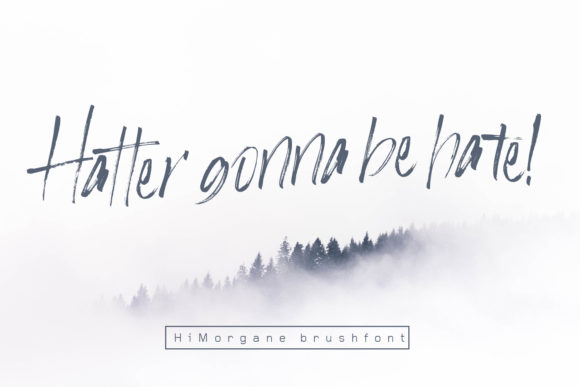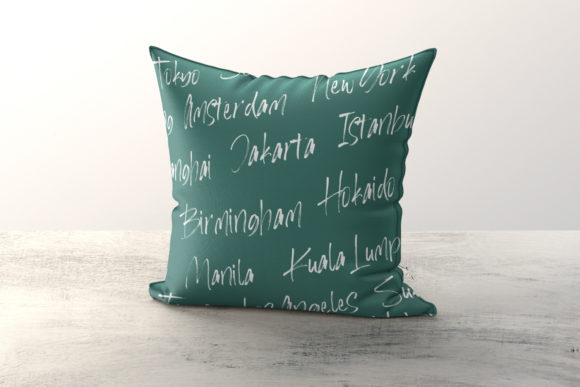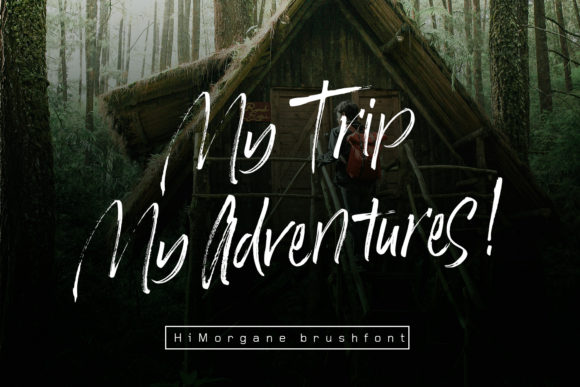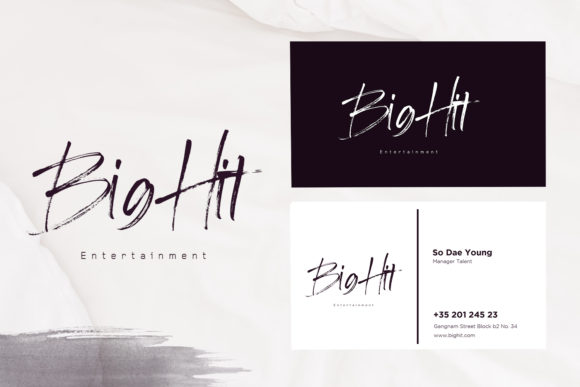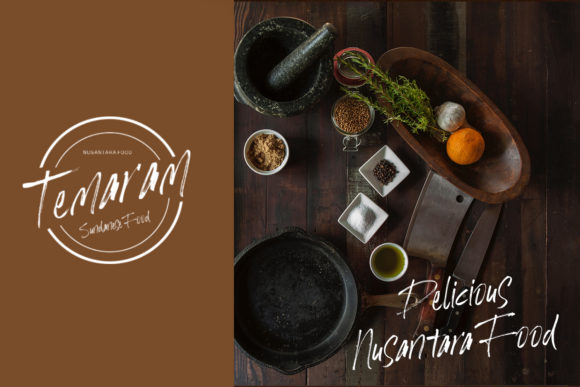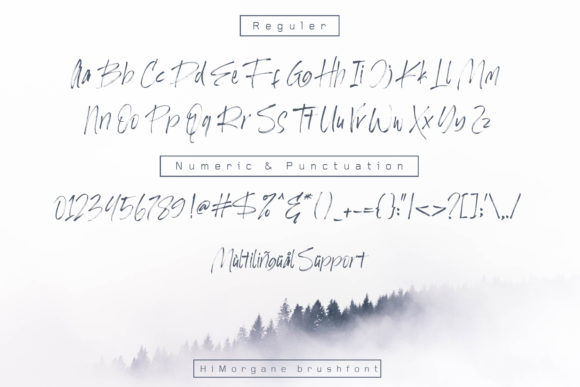
The Designer’s Delight: Hi Morgane Font
I’ll never forget the time I was working on a project for a client who wanted a bold, eye-catching design. I had spent hours scouring the internet for the perfect font, but nothing seemed quite right. That was until I stumbled upon Hi Morgane Font. This raw and unfiltered brush font with a bold feel completely transformed my design and turned it into a true standout.
So, what makes Hi Morgane Font so special? Let’s dive into the good stuff and a few quirks I’ve discovered.
- ✨ Unique and bold personality: Hi Morgane Font has a distinctive, hand-brushed feel that’s perfect for making a statement.
- ✅ Easy to read: Despite its bold nature, the font remains surprisingly legible, even at smaller sizes.
- 💫 Versatile: From posters and flyers to social media graphics and branding, Hi Morgane Font can adapt to various design needs.
While Hi Morgane Font is an excellent choice, there are a few things to keep in mind:
- 🤔 Limited use in formal designs: The bold, raw feel of Hi Morgane Font might not be suitable for more formal or traditional designs.
- ⚠️ Requires careful color choice: The font’s bold nature can sometimes clash with bright or overly vibrant colors.
While the actual origins of Hi Morgane Font might be shrouded in mystery, it’s easy to imagine a designer with a passion for bold, expressive typography creating such a font. Perhaps they were inspired by street art and graffiti, aiming to bring that raw energy into the digital realm.
| Font Name | Hi Morgane Font |
| Author | sabrcreative |
Q: What makes Hi Morgane Font unique?
A: Hi Morgane Font stands out due to its bold, raw, and unfiltered brush feel, making it perfect for designs that need a strong statement.
Q: Is Hi Morgane Font difficult to read?
A: Despite its bold nature, Hi Morgane Font is surprisingly legible, making it versatile for various design projects.